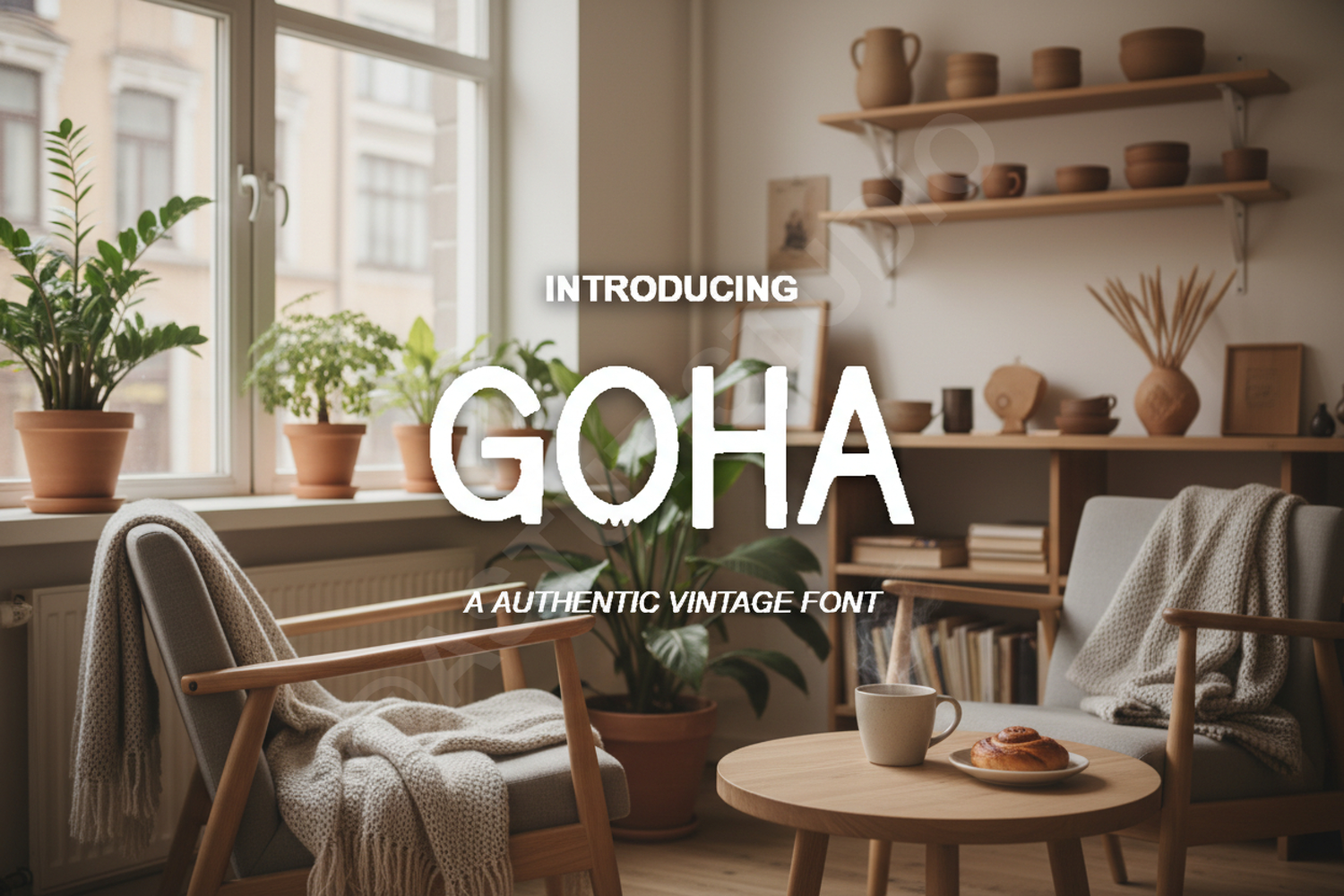
Goha - Elegant Modern Serif Typeface
Goha
Elevate your creative projects with Goha, a premium serif typeface that blends timeless elegance with modern sophistication. Designed with precision, Goha offers a unique balance of sharp serifs and smooth curves, making it a versatile choice for designers seeking a high-end aesthetic. Whether you are working on a luxury brand or a minimalist editorial layout, Goha provides the perfect touch of class.
- Comprehensive Ligatures and Alternates
- Premium Branding and Visual Identity
- High-end Editorial and Magazine Layouts
- Elegant Wedding Invitations and Stationery
- Sophisticated Logo Design
- Stylish Social Media Graphics and Quotes
- Professional Website Headers and Typography